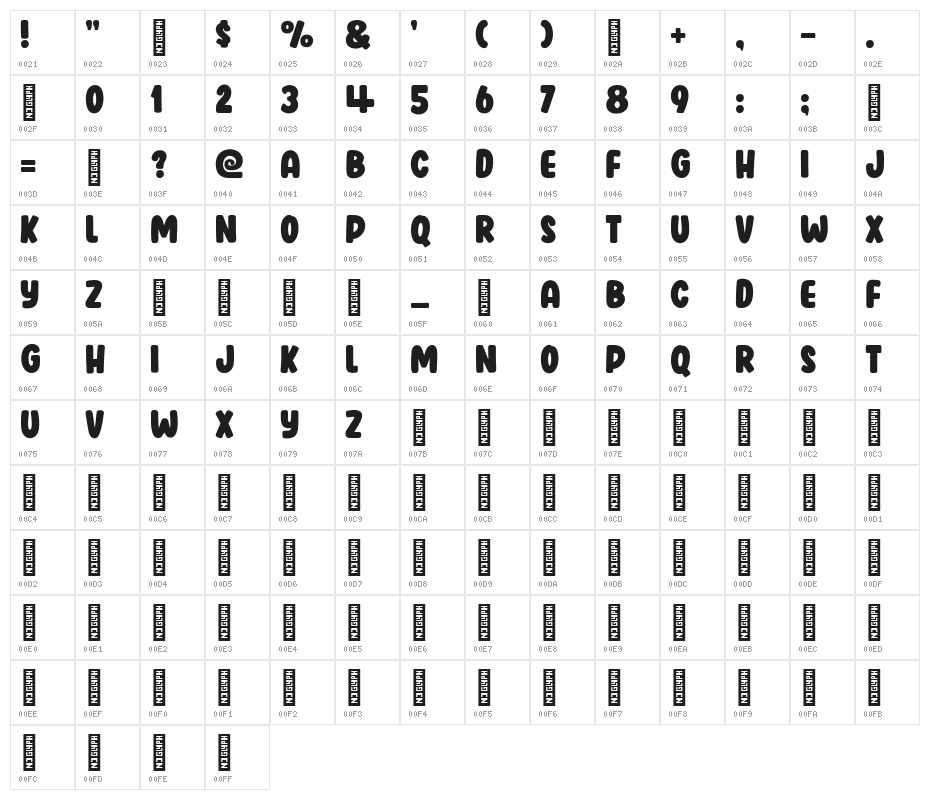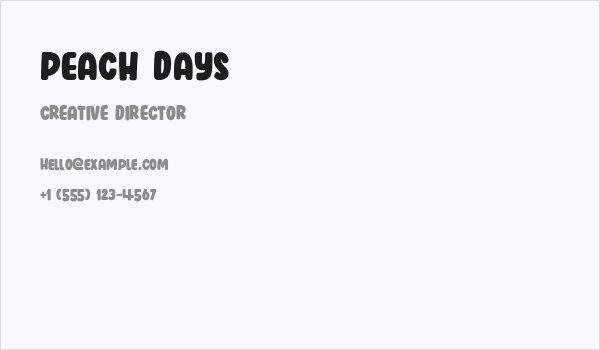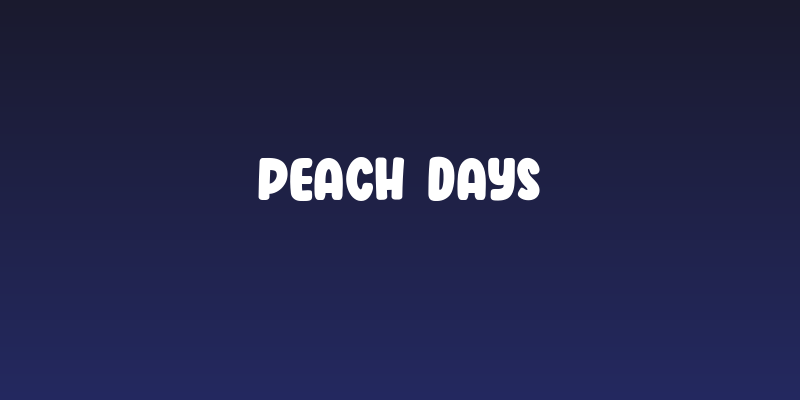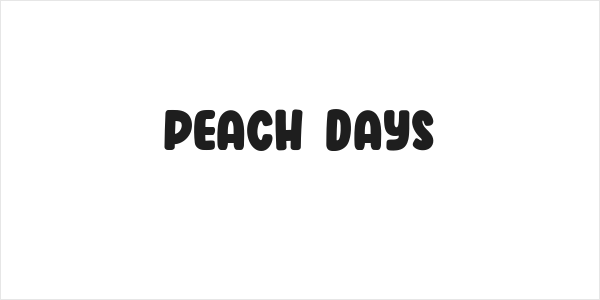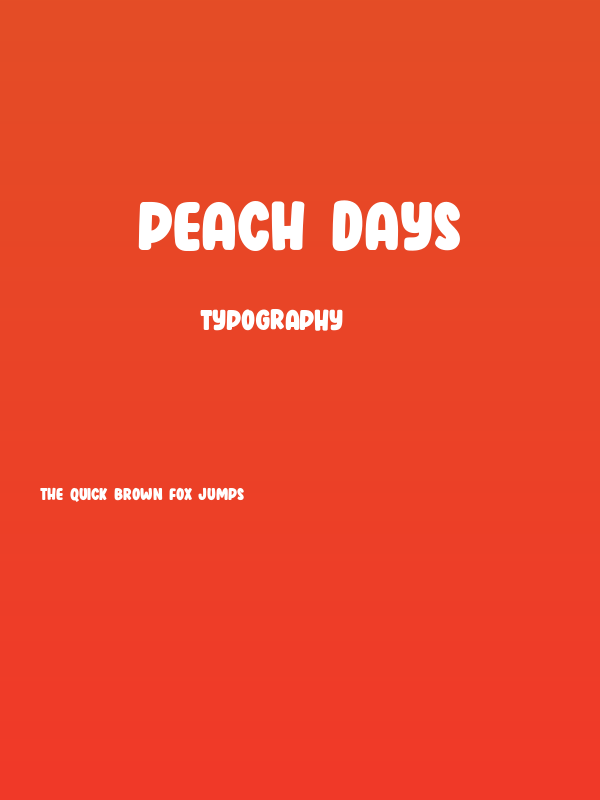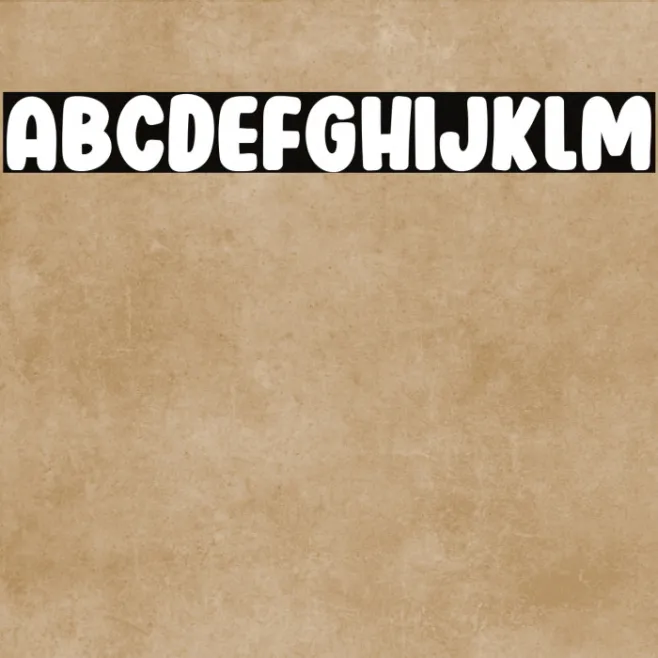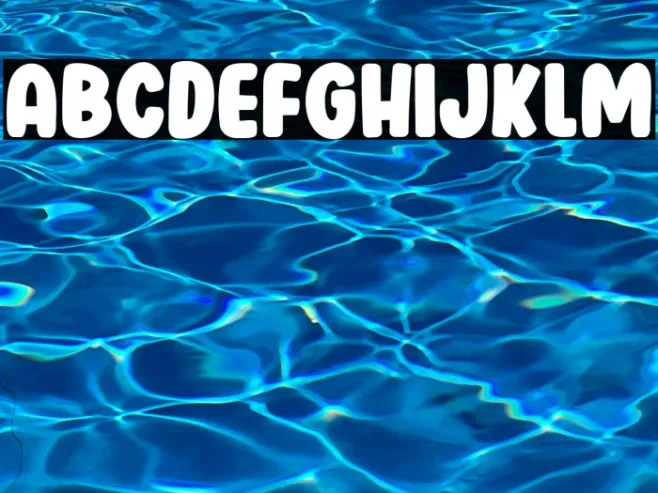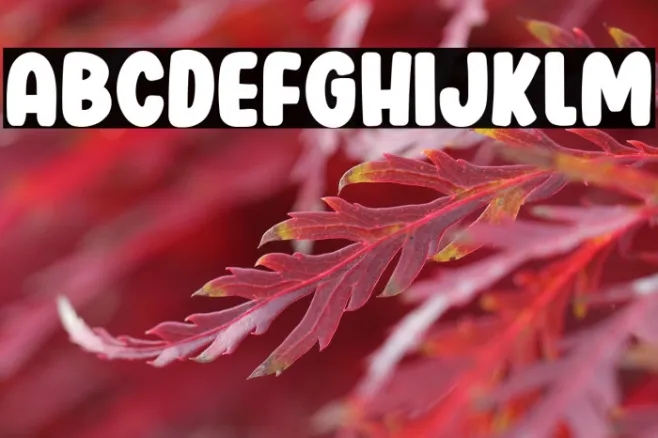
Peach Days Font
Peach Days Description
This font features a bold and playful design, characterized by its rounded and thick letterforms. The uppercase and lowercase letters maintain a consistent weight, contributing to a cohesive and friendly appearance. The numbers and special characters follow the same style, ensuring uniformity across all glyphs. The font's overall look is approachable and fun, making it suitable for projects that aim to convey a sense of warmth and creativity. Its boldness ensures readability, while the rounded edges soften its impact, creating a balance between assertiveness and approachability.